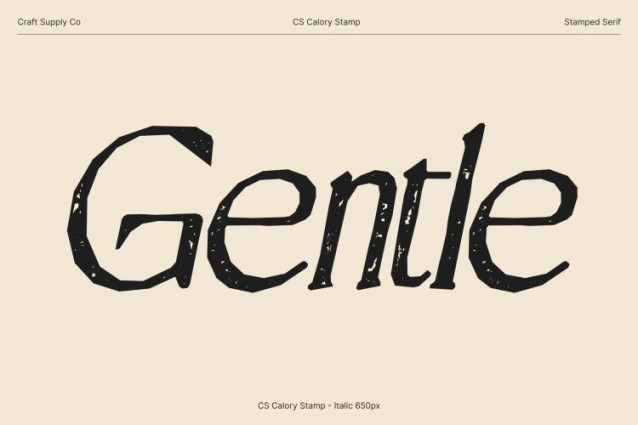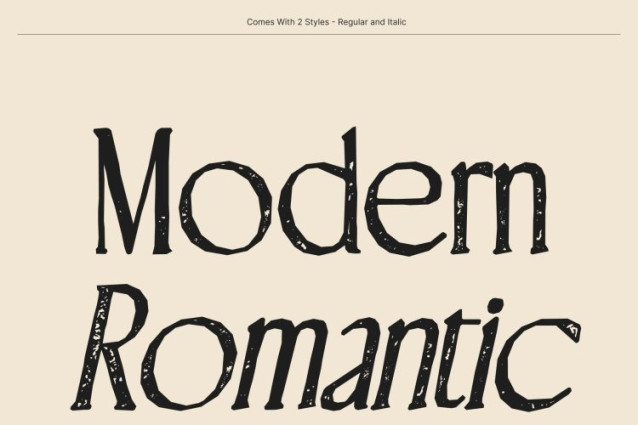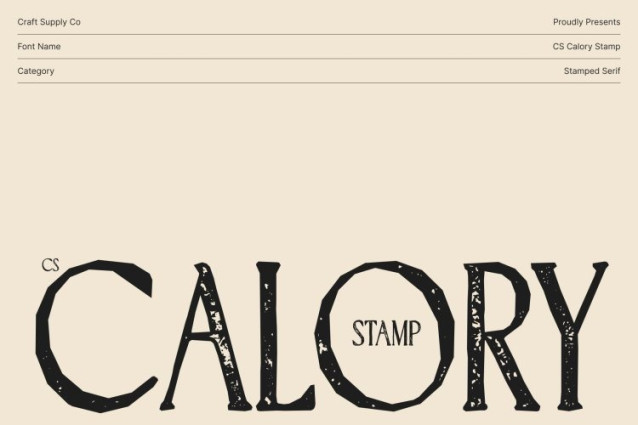
CS Calory Stamp Font
CS Calory Stamp Font is a modern serif font with a condensed structure, enhanced by a distinctive stamp effect that introduces vintage character and artistic texture. Its slim, space-efficient letterforms maintain their elegant proportions, while subtle distressed edges and ink-like imperfections evoke the charm of traditional printing. This fusion creates a refined typeface that feels both structured and expressive.
Condensed Elegance with Textured Detail
The narrow design of this font delivers a graceful vertical rhythm that maximizes space without sacrificing style. The stamp treatment adds delicate irregularities and worn textures, giving the font an authentic handcrafted feel. These details enrich the smooth serif lines, creating depth while preserving the font’s polished and professional appearance.
Classy and Professional with a Vintage Touch
This is perfect for formal and sophisticated projects that benefit from subtle character. It works beautifully in editorial headlines, invitations, luxury branding, and premium packaging. The combination of condensed elegance and textured charm ensures a clean layout while adding a distinctive visual personality.
Versatile for Refined Design Applications
Designed to balance practicality and beauty, this font adapts seamlessly across editorial design, logos, marketing materials, and creative compositions. Its condensed form provides efficient typography, while the vintage stamp texture brings warmth and individuality making it ideal for projects that seek both professionalism and timeless style.